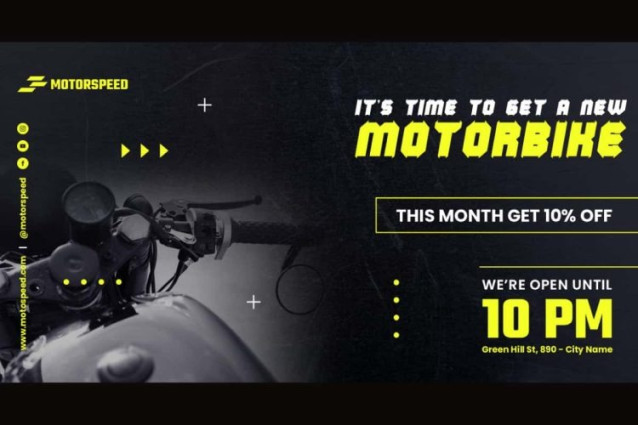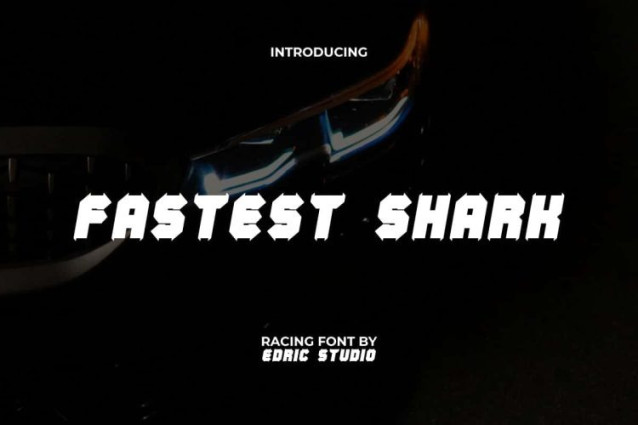
Fastest Shark Font
Fastest Shark Font is a rad decorative racing typeface that combines boldness with unique style to make your designs stand out. It offers a sense of fierceness and energy with each letter expertly crafted to provide excellent readability while providing a strong visual impact, ensuring your designs grab attention! Perfect for banners, blogs, brochure, business card, covers, flyer, headers, invitation, logos, mockup, packaging, poster, screen print, stationery, sticker, t-shirt, template, title, website, etc.
Fastest Shark Font includes full set of ALL CAPS for Uppercase and Lowercase Basic Characters, Numbers, Punctuation and Symbols. This font is designed to bring your brand to life in a modern, bold and stylish sporty look that is actually inspired by vintage to cutting-edge concepts. With a solid and bold letterform, it is able to dominate the spotlight, easily adapting to various contexts and is ideal for print and digital applications. Perfect for fashion, gym studio, motorbike, music, sportwear, etc.